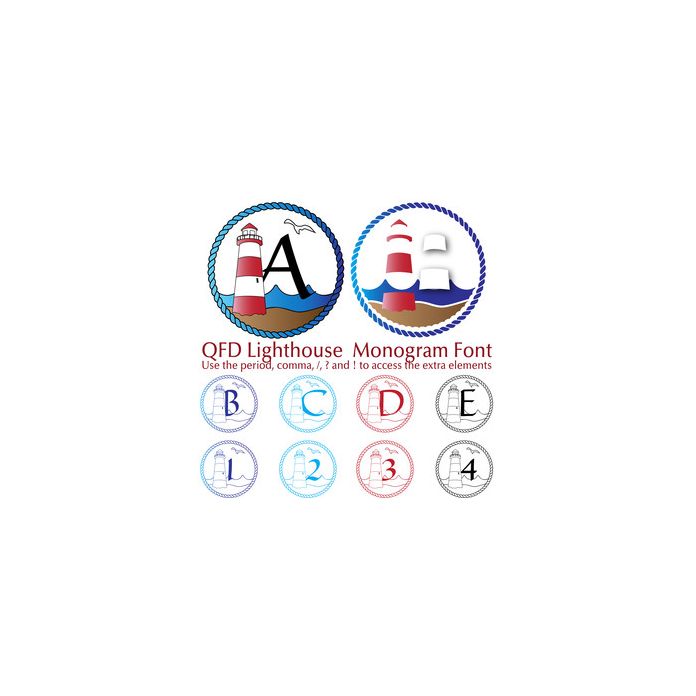
It’s beach time! This font paints a whole adventure scene. Combine this fun font with the other QFD Summer Beach Monogram fonts! See our detailed monograms tutorial by clicking the Instructions button. Use the period, comma, /, ? and ( to access the extra elements.